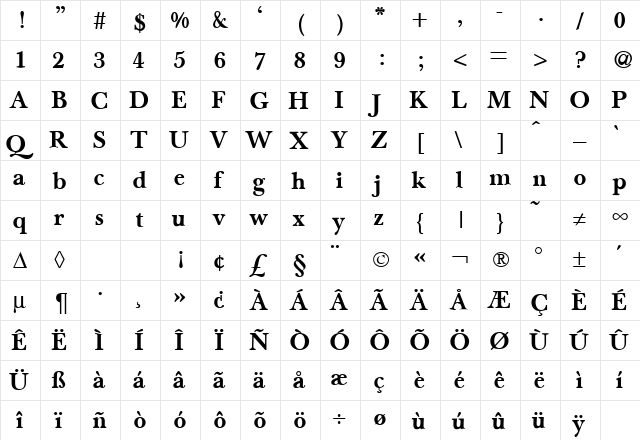
BaskervilleBook Bold
Design Context for BaskervilleBook Typeface
BaskervilleBook is a composed and adaptable typeface that performs quietly and consistently across a wide range of design contexts. The heavy weight commands attention and anchors typographic hierarchies.